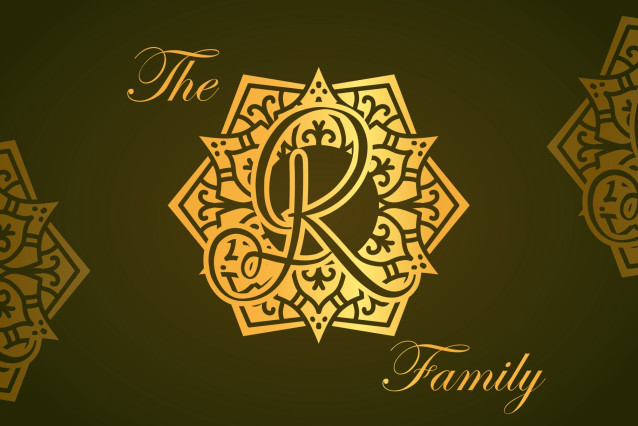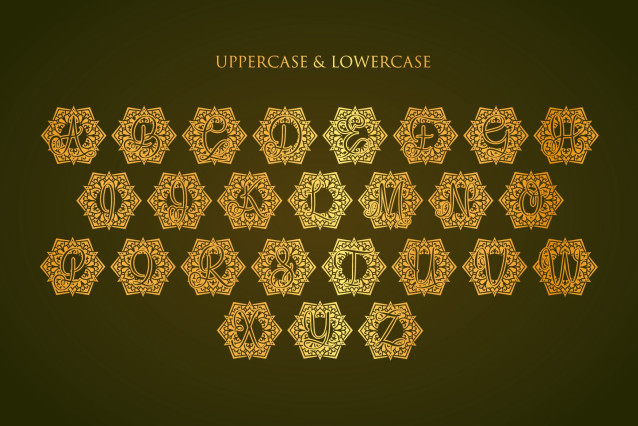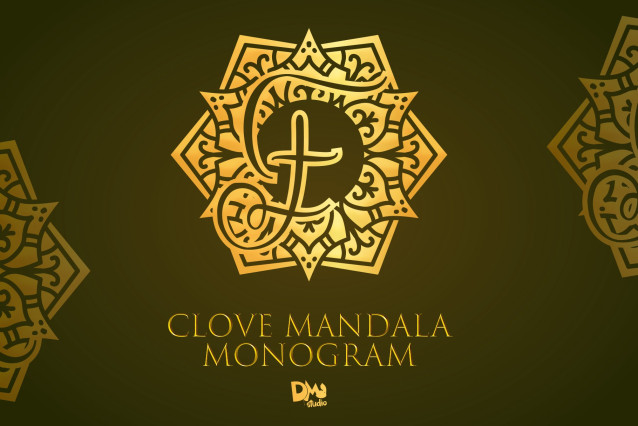
Clove Mandala Monogram Font
Clove Mandala Monogram is a beautifully crafted monogram font that merges aromatic clove elements with intricate mandala artistry. Inspired by the warmth and charm of spices and ornamental patterns, this font is perfect for organic branding, artisanal product packaging, personalized gifts, cozy wedding designs, and wellness projects. Its rich and detailed aesthetic brings a comforting, natural touch to any creative endeavor.